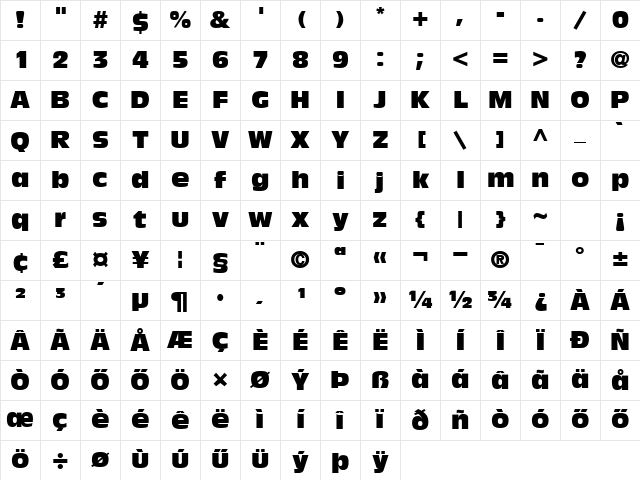
Complete HAntique Olive Compact Normal glyph index. Displaying only characters natively supported by HAntique Olive Compact Normal font.
HAntique Olive Compact wears its vintage influences proudly, with letterforms that recall mid-century signage, classic packaging, and nostalgia-driven design.
Font Pairing: Combine HAntique Olive Compact with a simple slab or neutral sans - period-accurate companions reinforce the vintage feel without competing for attention.
Pro Tip: Lean into HAntique Olive Compact's period character by pairing it with aged paper textures, muted colour palettes, and vintage illustration styles.